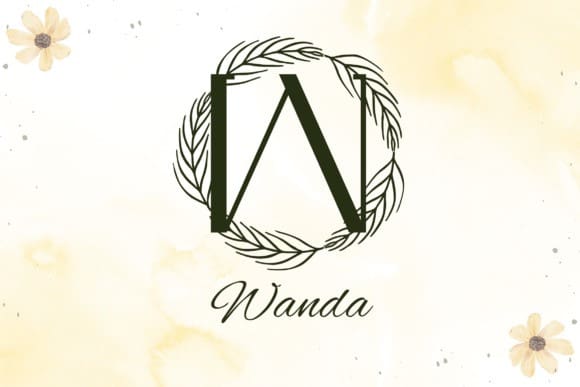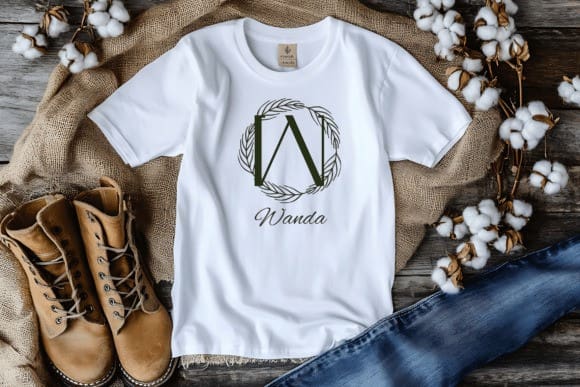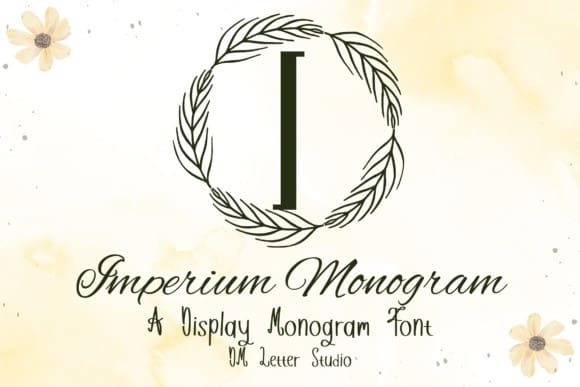
Imperium Monogram Font is a bold and stately serif monogram font designed to evoke timeless grandeur and noble sophistication. Perfect for luxury branding, personalized gifts, wedding monograms, or boutique logos, this font is built for creators who want their designs to feel powerful, elegant, and refined. Inspired by classical Roman letterforms, Imperium Monogram blends tradition and prestige with a clean, contemporary serif touch.
Every uppercase letter in Imperium Monogram is carefully sculpted with balanced proportions, subtle contrast, and regal flair. It’s ideal for projects that demand a sense of authority and grace—from stationery and packaging to signage and embossed initials. Whether you’re designing for a high-end fashion label, a royal-inspired event, or a bespoke product line, Imperium makes your work feel elevated.
Crafted specifically for monogram use, this font includes A–Z uppercase characters with strong vertical structure and subtle flair. The classic serif shapes ensure legibility even in compact spaces while still offering high visual impact. It pairs beautifully with minimalist sans-serif fonts or script styles, making it versatile for both solo monograms and complex typographic arrangements.
Whether you’re creating a brand identity, engraving a leather product, or printing luxury invitations, Imperium Monogram adds strength and elegance to your visual storytelling.